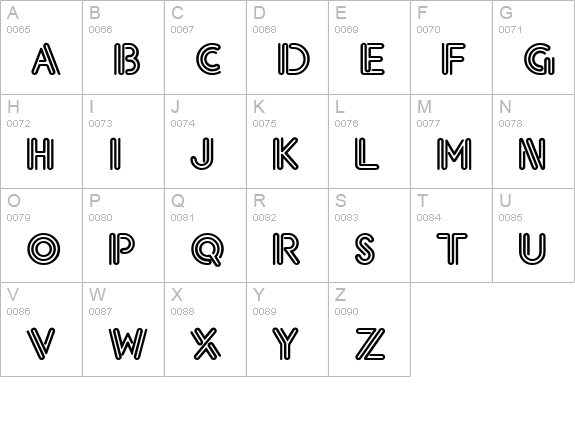
Eklektic Normal Font Details
Eklektic Normal is the standard, neutral variant in the Eklektic typeface family \xE2\x80\x94 well suited to general body text, paragraphs, and standard typographic work.
Eklektic Normal font is a versatile and modern typeface that combines elegance with a touch of creativity. Its clean lines and balanced proportions make it perfect for a wide range of design projects, from branding to editorial design. The sleek and sophisticated appearance of Eklektic Normal font exudes professionalism and style, making it a great choice for both digital and print applications. What sets Eklektic Normal font apart is not only its aesthetic appeal, but also its accessibility. This font is available for free download at FontsMarket.com, allowing designers and creatives to easily incorporate it into their projects without any cost. With its timeless design and effortless readability, Eklektic Normal font is sure to elevate any design and leave a lasting impression on viewers.